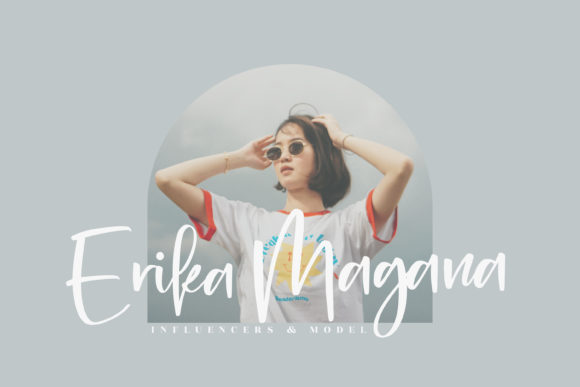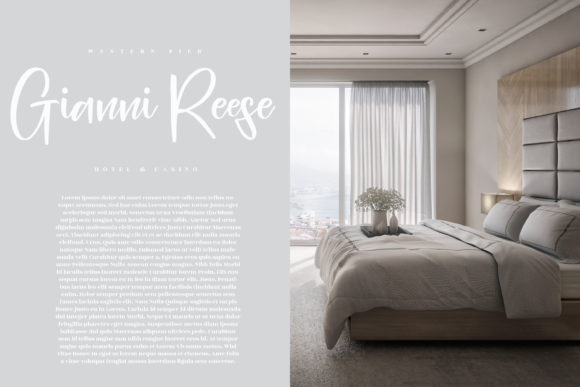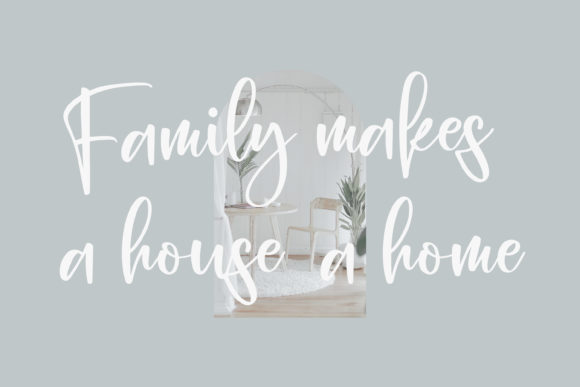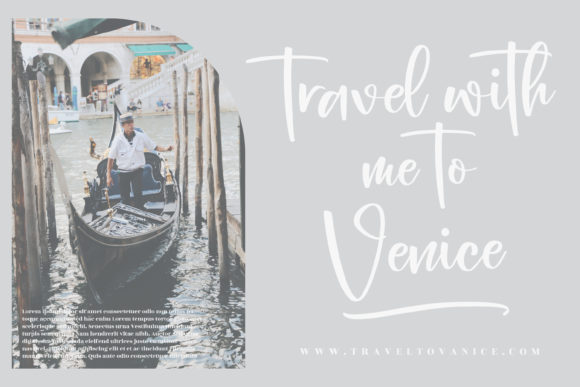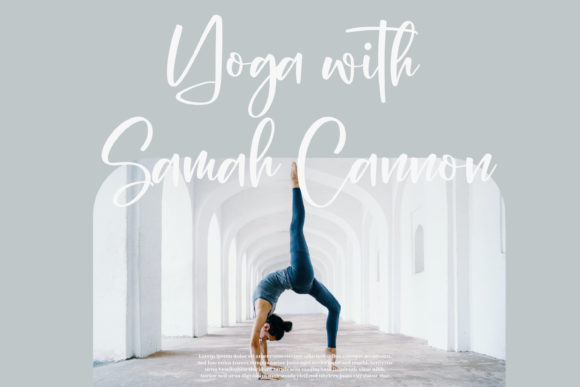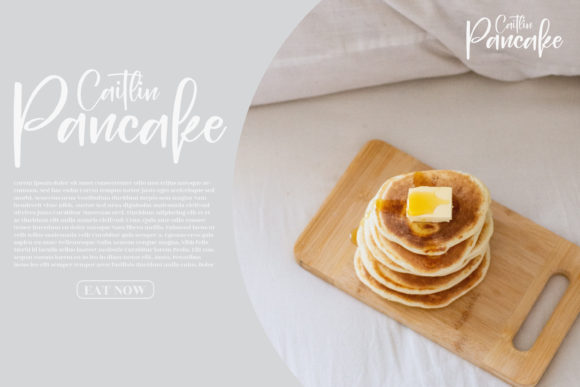
Introducing Berlina Dreams Font: Elevate Your Designs with Elegance
Are you on the hunt for a font that exudes elegance, sophistication, and a touch of whimsy? Look no further than Berlina Dreams, a delicate and flowing handwritten font that is sure to capture your heart. With its beautiful and well-balanced characters, this versatile font is perfect for a wide range of design projects. In this article, we’ll dive into the world of Berlina Dreams and explore how you can use it to create spectacular designs that leave a lasting impression.
The Beauty of Berlina Dreams
Berlina Dreams is a masterpiece of font design, boasting a unique blend of elegance and playfulness. Its delicate strokes and flowing lines create a sense of movement and fluidity, making it perfect for designs that require a touch of sophistication. The font’s characters are meticulously crafted to ensure balance and harmony, resulting in a visually stunning effect that will elevate your designs to new heights.
One of the standout features of Berlina Dreams is its incredible versatility. Whether you’re working on a wedding invitation, a fashion brand, or a lifestyle blog, this font is sure to adapt seamlessly to your design needs. Its neutral tone and classic style make it an excellent choice for a wide range of projects, from modern and trendy to vintage and rustic.
What Makes Berlina Dreams So Special?
So, what sets Berlina Dreams apart from other fonts on the market? Here are just a few reasons why this font is a cut above the rest:
- Delicate and elegant design: Berlina Dreams boasts a beautiful, hand-crafted design that exudes elegance and sophistication.
- Well-balanced characters: Each character is carefully crafted to ensure balance and harmony, creating a visually stunning effect.
- Versatile style: Berlina Dreams is incredibly versatile, making it perfect for a wide range of design projects.
- Easy to read: Despite its delicate nature, Berlina Dreams is surprisingly easy to read, even at smaller font sizes.
How to Use Berlina Dreams in Your Designs
Now that you’re familiar with the beauty and versatility of Berlina Dreams, let’s explore some ways you can use it in your designs:
Wedding Invitations and Stationery
Berlina Dreams is a perfect choice for wedding invitations, save-the-dates, and other stationery. Its elegant design and flowing lines create a romantic and whimsical feel that’s sure to impress.
Fashion and Beauty Branding
If you’re working on a fashion or beauty brand, Berlina Dreams is an excellent choice. Its sophisticated style and delicate design make it perfect for creating luxurious and high-end branding materials.
Lifestyle Blogs and Magazines
Berlina Dreams is also a great choice for lifestyle blogs and magazines. Its easy-to-read design and elegant style make it perfect for creating engaging and visually stunning content.
Tips and Tricks for Working with Berlina Dreams
Here are a few tips and tricks to help you get the most out of Berlina Dreams:
- Experiment with font sizes: Berlina Dreams looks great at a variety of font sizes, so don’t be afraid to experiment and find the perfect size for your design.
- Pair it with bold fonts: Berlina Dreams pairs beautifully with bold fonts, creating a striking contrast that’s sure to grab attention.
- Use it for headlines and body text: Berlina Dreams is easy to read, making it perfect for both headlines and body text.
In conclusion, Berlina Dreams is a stunning handwritten font that is sure to elevate your designs to new heights. Its delicate and elegant design, well-balanced characters, and versatile style make it perfect for a wide range of projects. Whether you’re a designer, crafter, or DIY enthusiast, Berlina Dreams is an excellent choice for anyone looking to add a touch of sophistication and whimsy to their designs. So why wait? Fall in love with Berlina Dreams and start creating spectacular designs today!